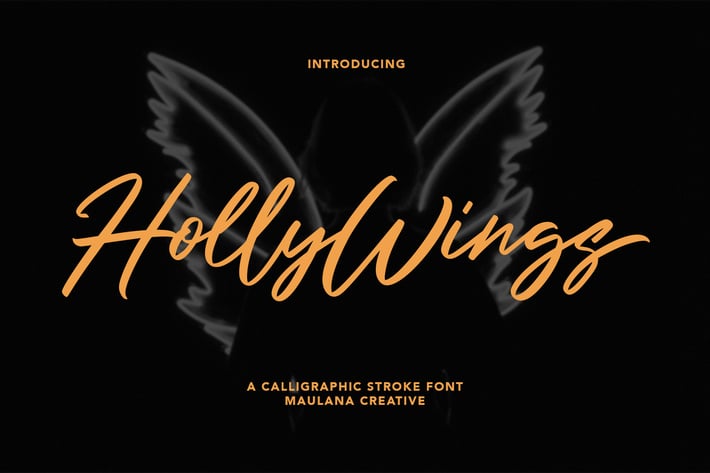
Holly Wings Calligraphic Font
Give your designs an authentic handcrafted feel. "Holly Wings Calligraphic Font" is perfectly suited to signature, stationery, logo, typography quotes, magazine or book cover, website header, clothing, branding, packaging design and more. Included 2 Font, Regular and Alternate.